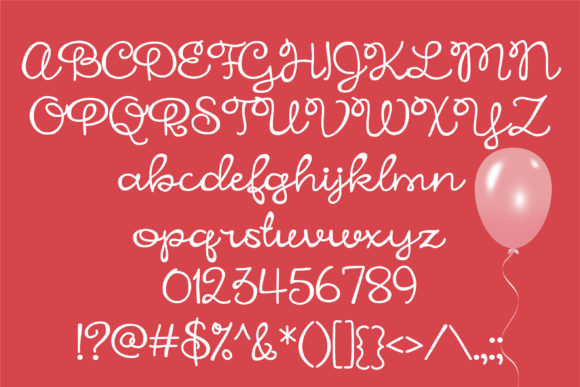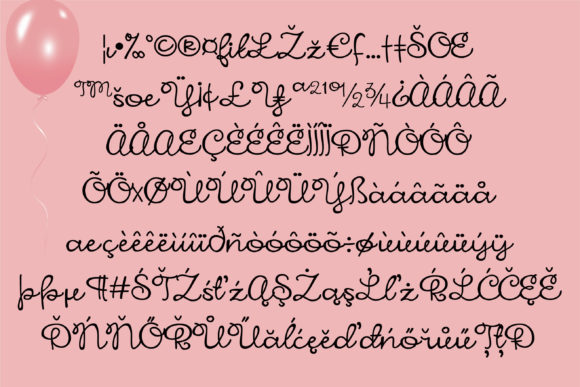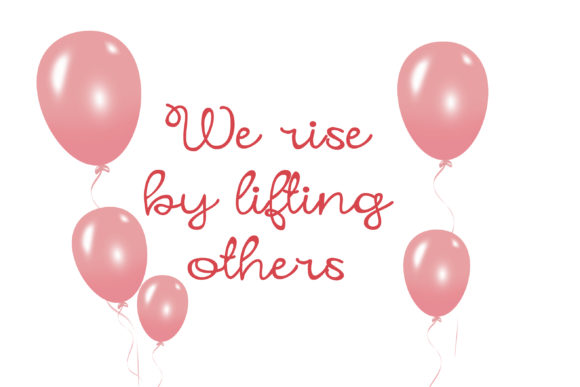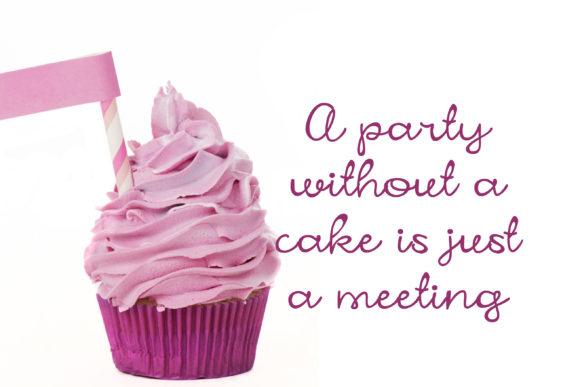
HomeScript FontsLuftballoons Font Script Fonts Luftballoons Font FacebookXPinterestWhatsApp Luftballoons Font Poster 2 Luftballoons Font Poster 3 Luftballoons Font Poster 4 Luftballoons Font Poster 5 About Luftballoons Font Luftballoons is a charming and light handwritten font. Fall in love with its cute and adorable feel! DOWNLOAD ON CREATIVE FABRICAThis font is sold and delivered by Creative Fabrica. Font Canyon may earn a commission if you buy through this link. People also explored Regina Font Bumper Lovelia Stars Font MultiType Lines Narrow Font Belle Elida Font Florena Font Amalia Salvatore Font Barthalo Font Kartini Split Monogram Font 319 0 TagsLuftballoons Font Previous articleBetter Memories FontNext articleMolianty Script Font LEAVE A REPLY Cancel reply Comment: Please enter your comment! Name:* Please enter your name here Email:* You have entered an incorrect email address! Please enter your email address here Website: Save my name, email, and website in this browser for the next time I comment. Personal Use Free Token No 721 Personal Use Free Read more about this font Hello Ketta Personal Use Free Read more about this font Snaily Personal Use Free Read more about this font BD Console Personal Use Free Read more about this font BLOG Top 10 Handwritten Fonts That Elevate Your Designs Top 10 Handwritten Fonts That Will Elevate Your Designs Handwritten fonts bring a warm, personal touch to every creative project. Whether you're designing logos, invitations,... How to Cut Any Font on Cricut: Convert a Font to SVG (Free) Elegant Wedding Invitation Fonts – Handwritten & Script Fonts Free vs Paid Fonts: Why Investing in Premium Fonts Is Worth It